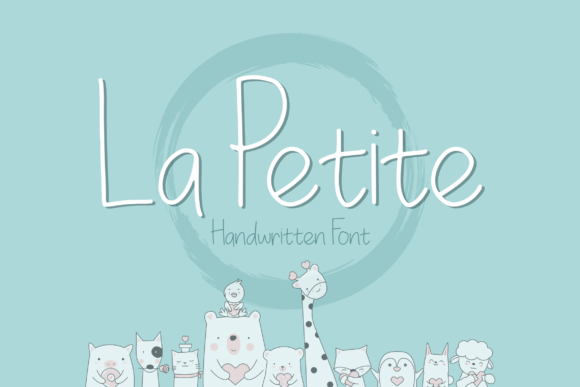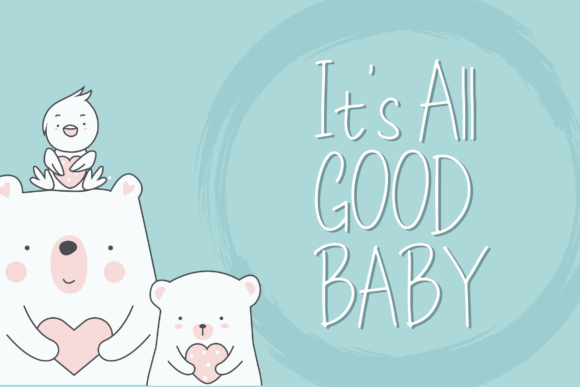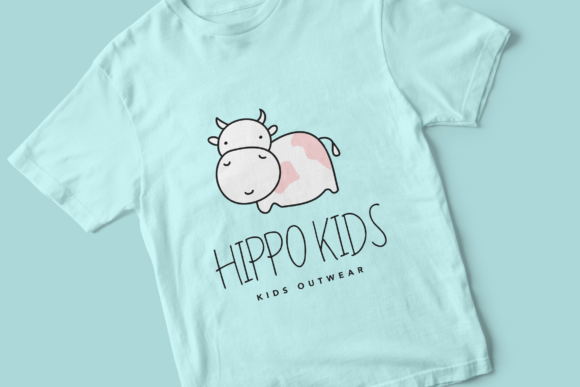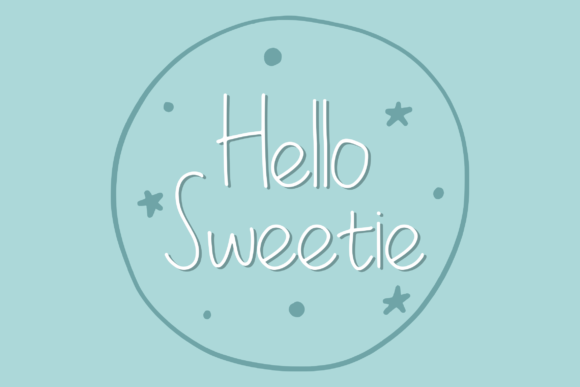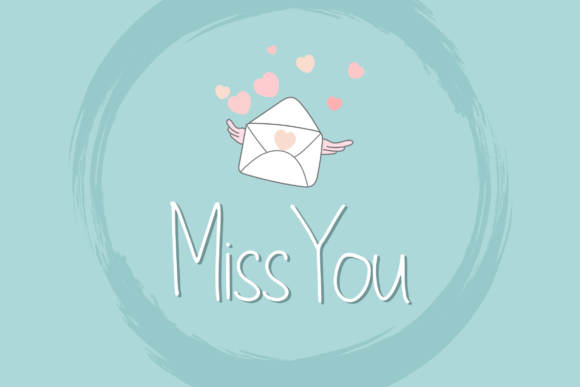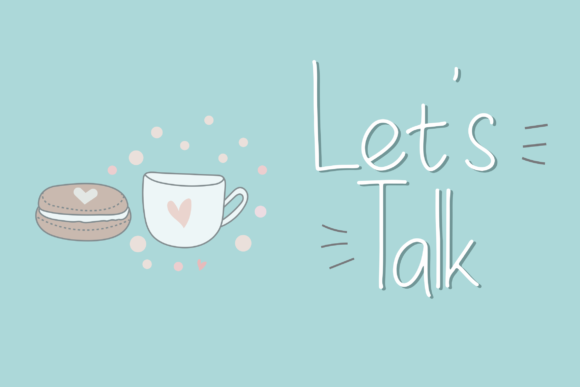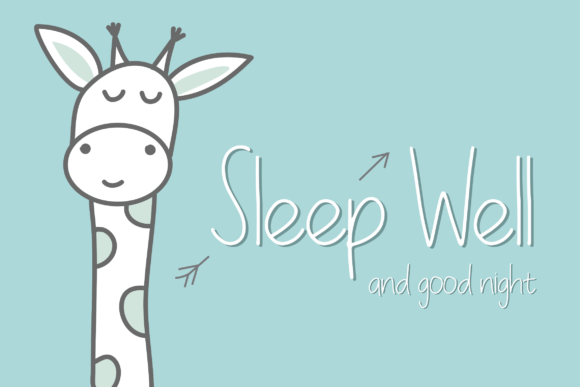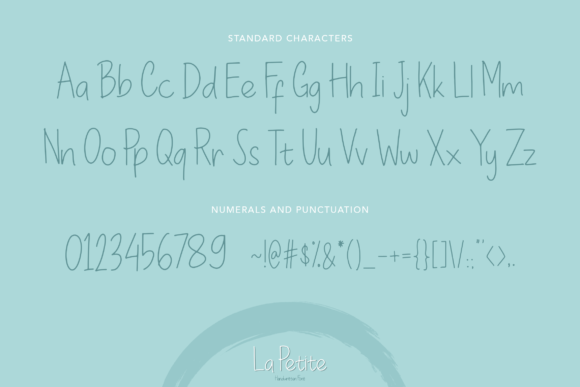
La Petite Font
About La Petite Font
La Petite is a soft and friendly script with an energetic feel. It’s the perfect font for adding a whimsical feel to any design project!